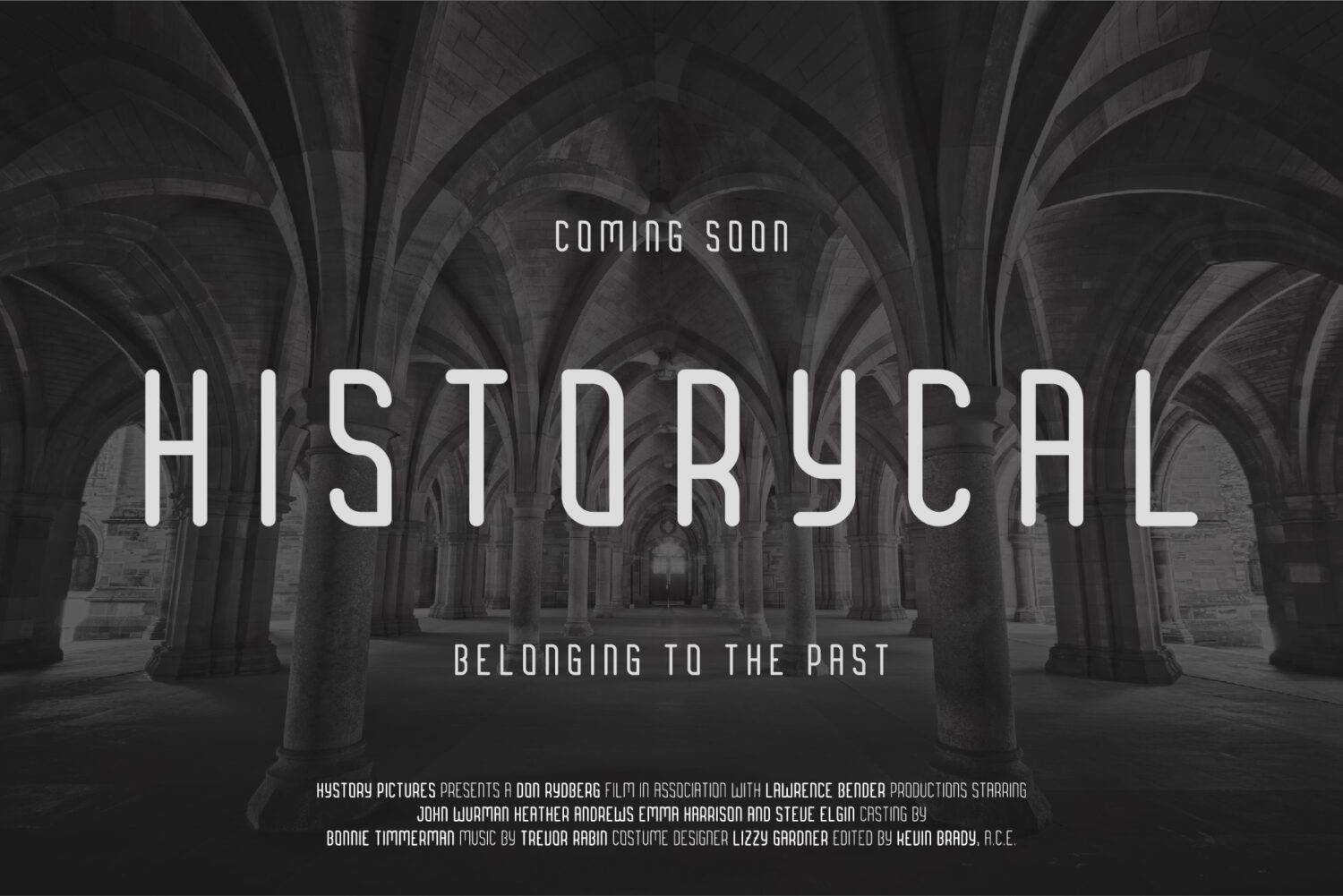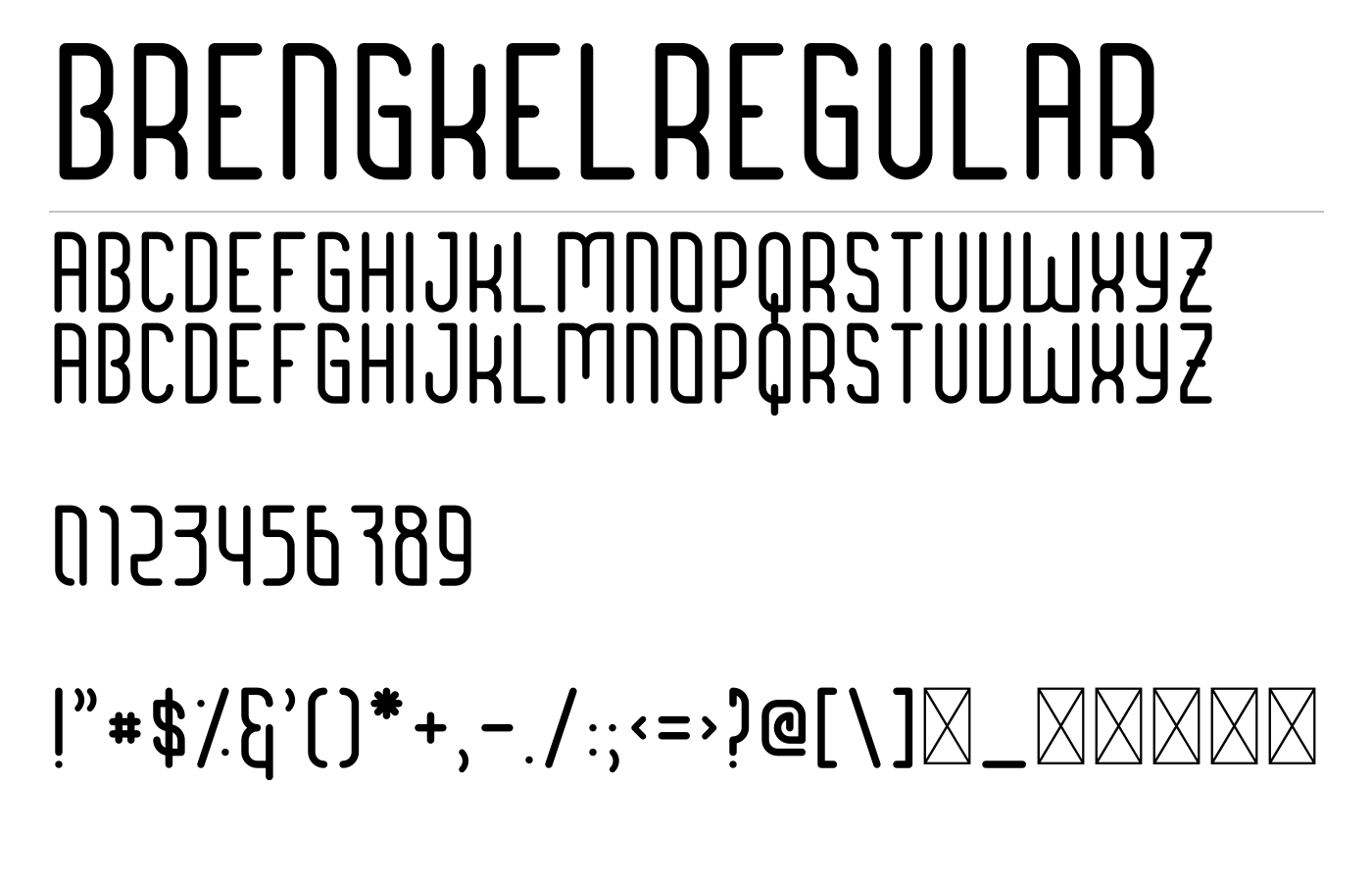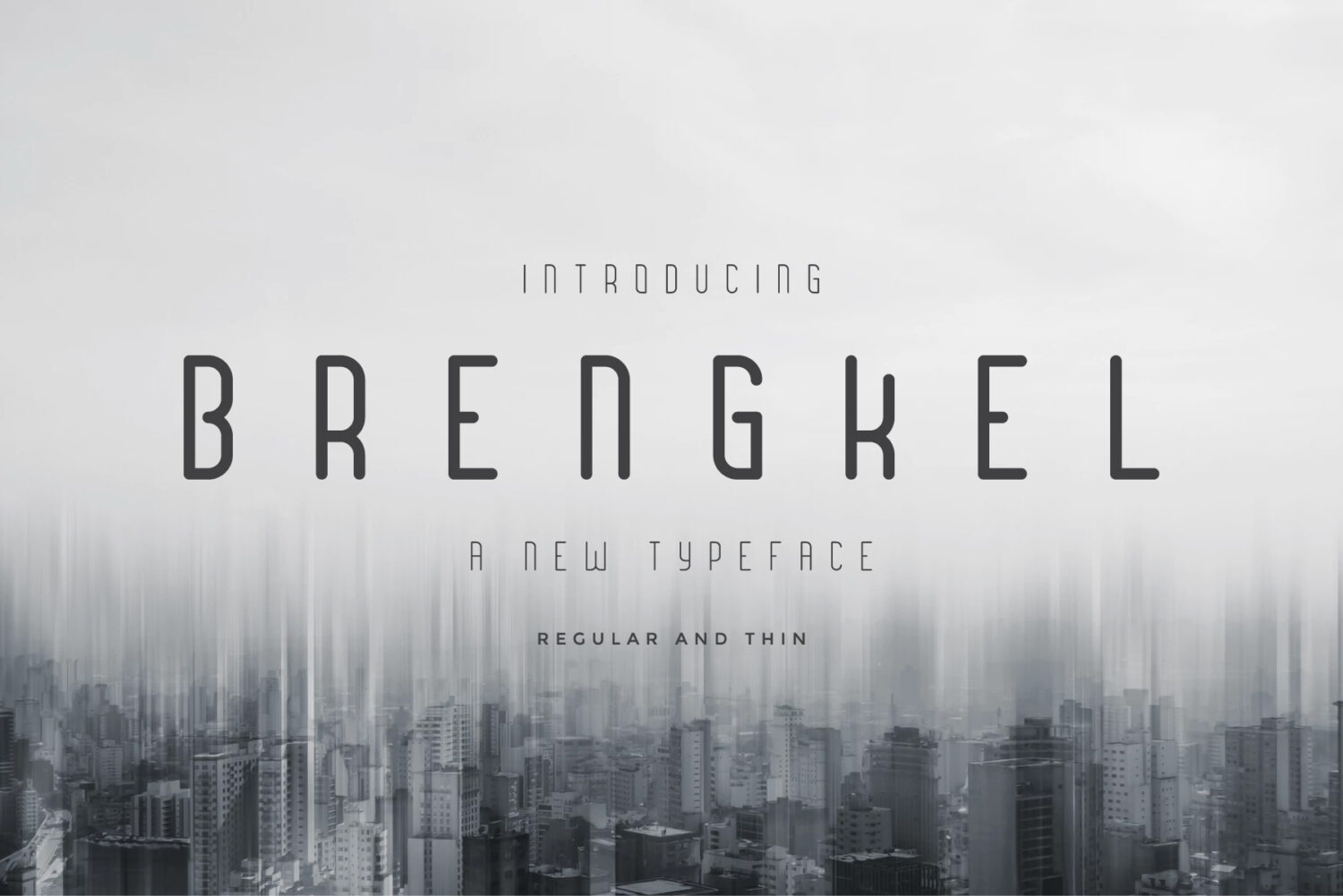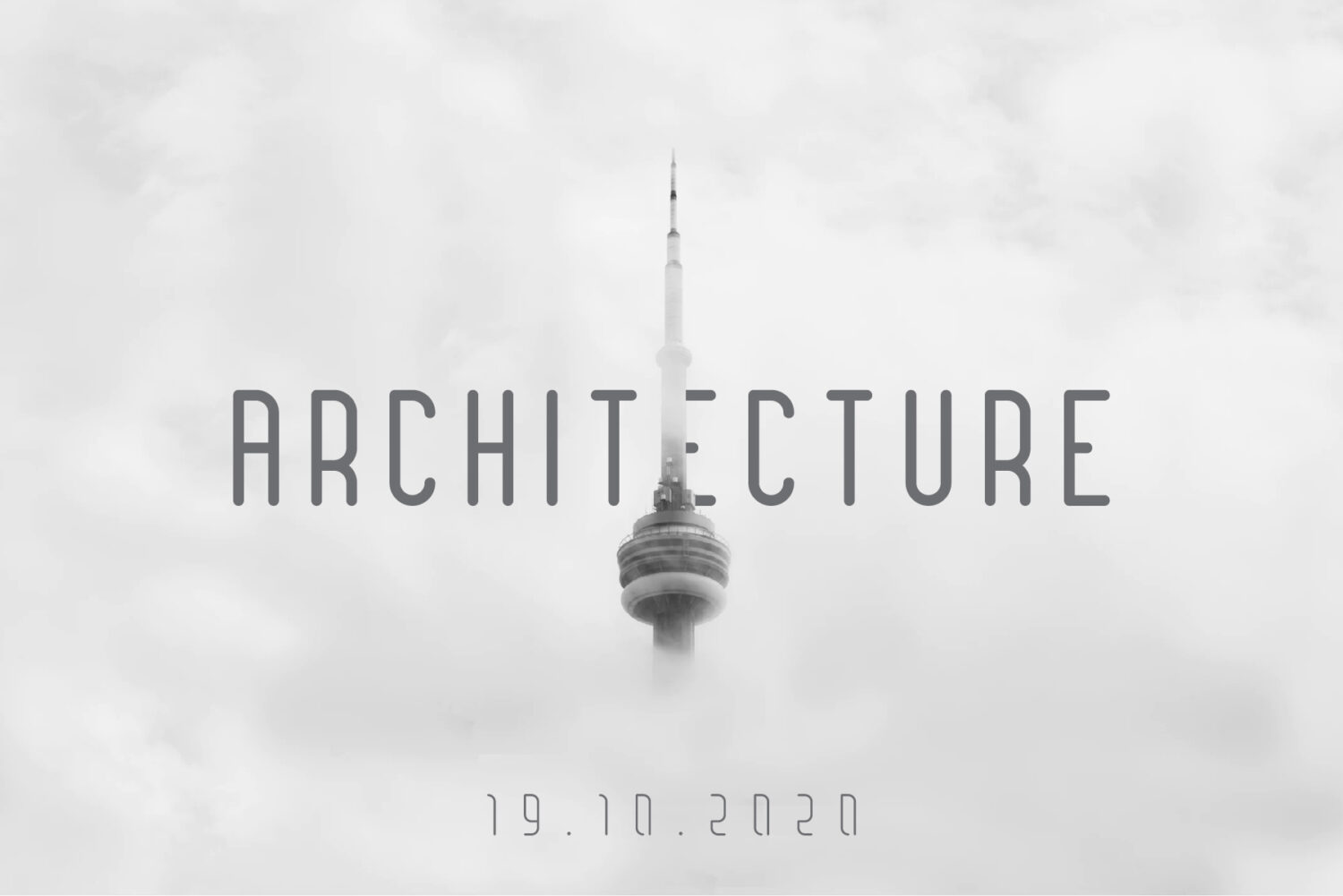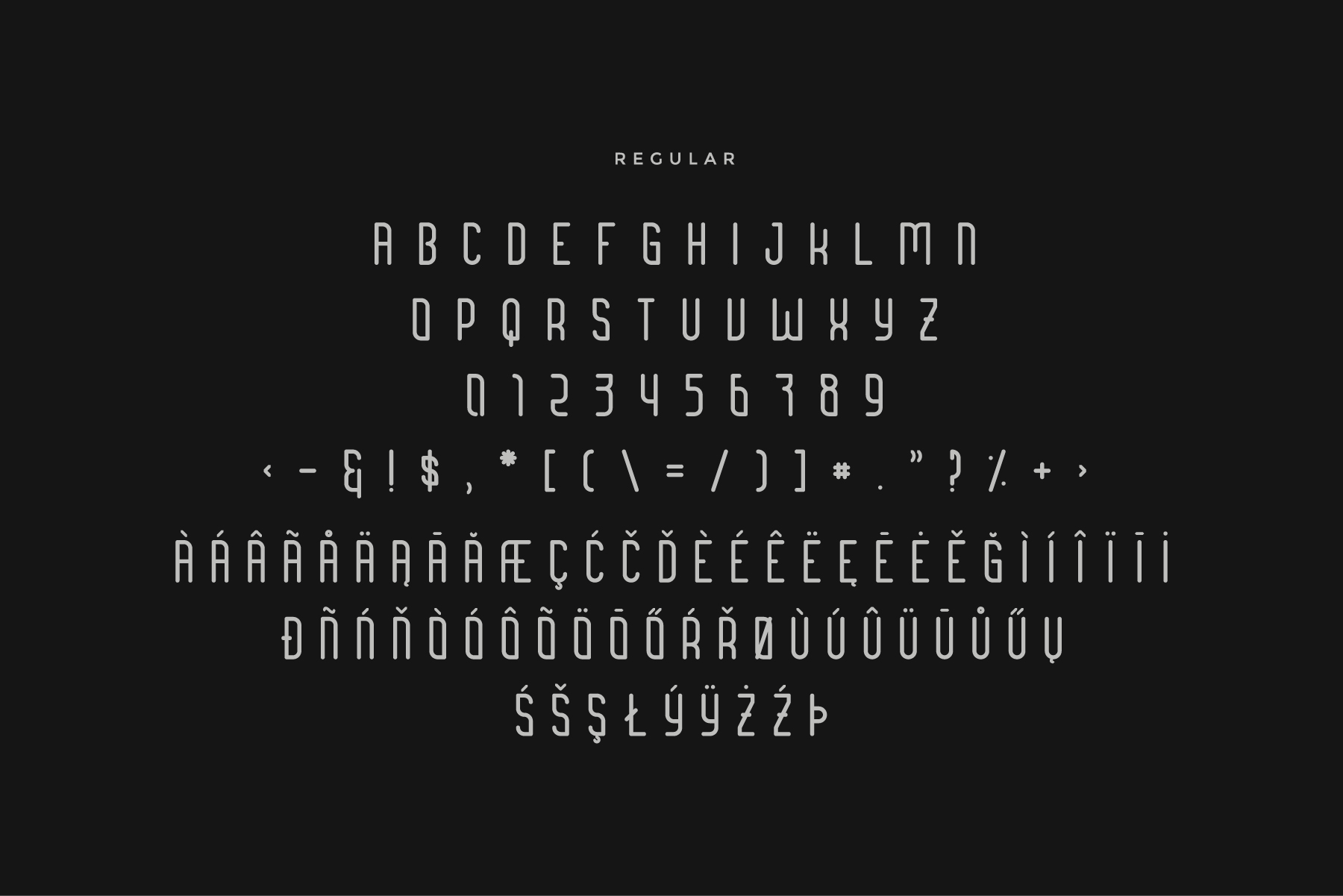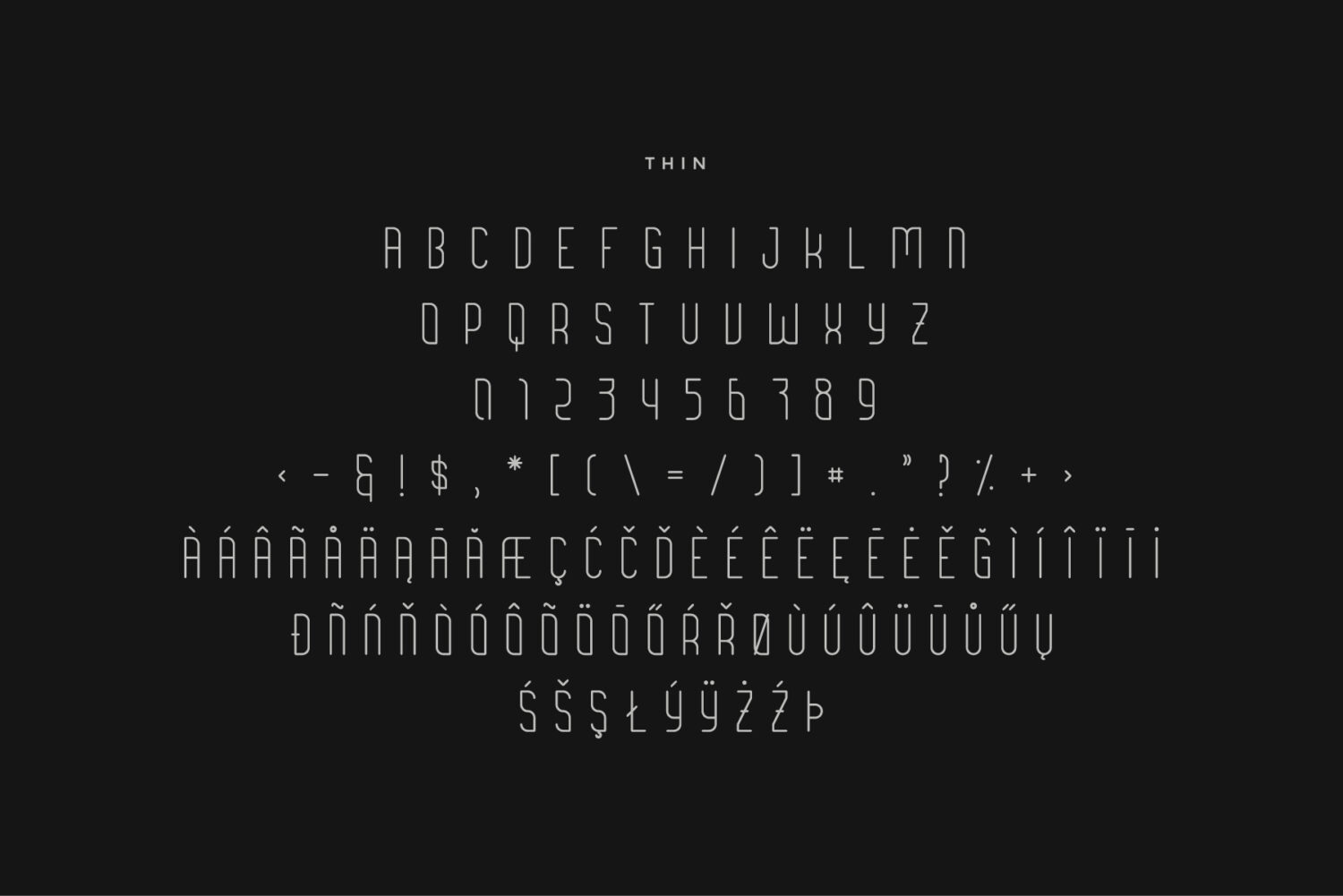
Brengkel is a narrow, sans serif font with a modern, geometric feel characterized by its tall, rounded letterforms and uniform stroke weight. Its compact width and clean, minimalistic shapes make it perfect for sleek, contemporary branding or digital interfaces that need a distinctive yet readable typeface. This font works well in headlines, logos, and tech-inspired designs where a stylish, futuristic vibe is desired.
Brengkel
About Brengkel